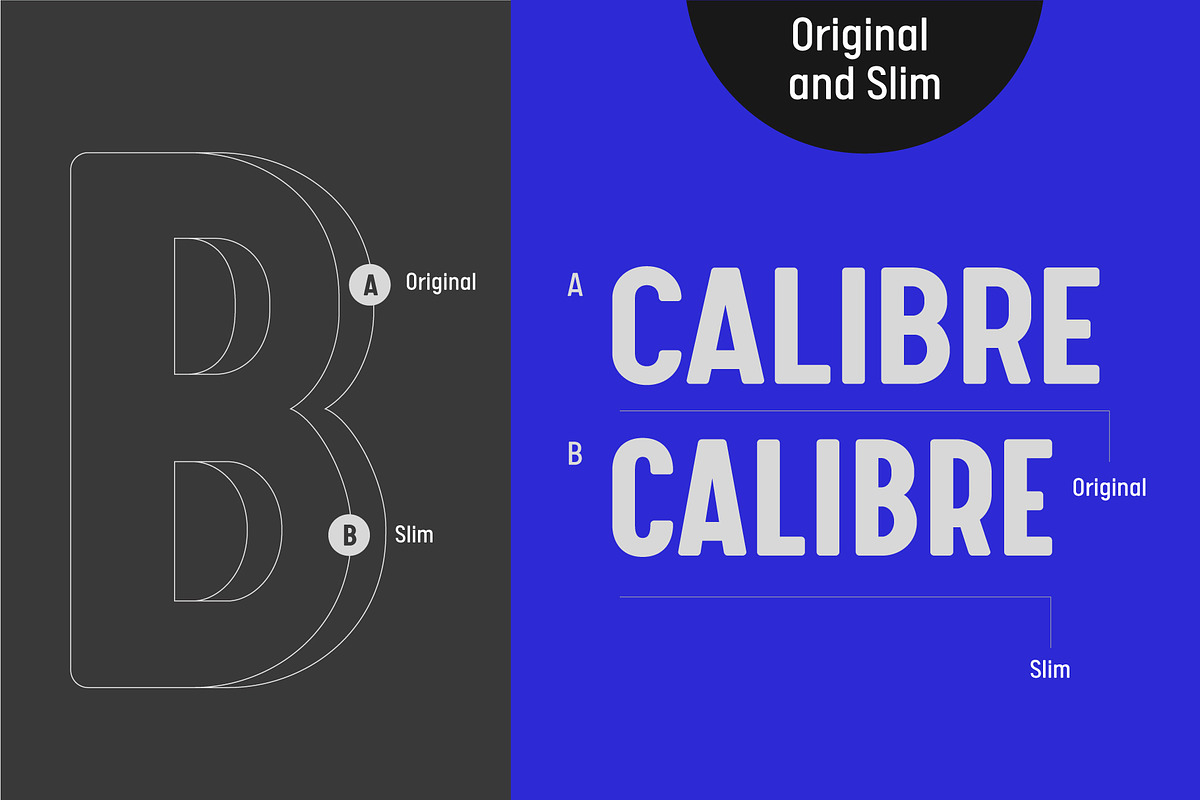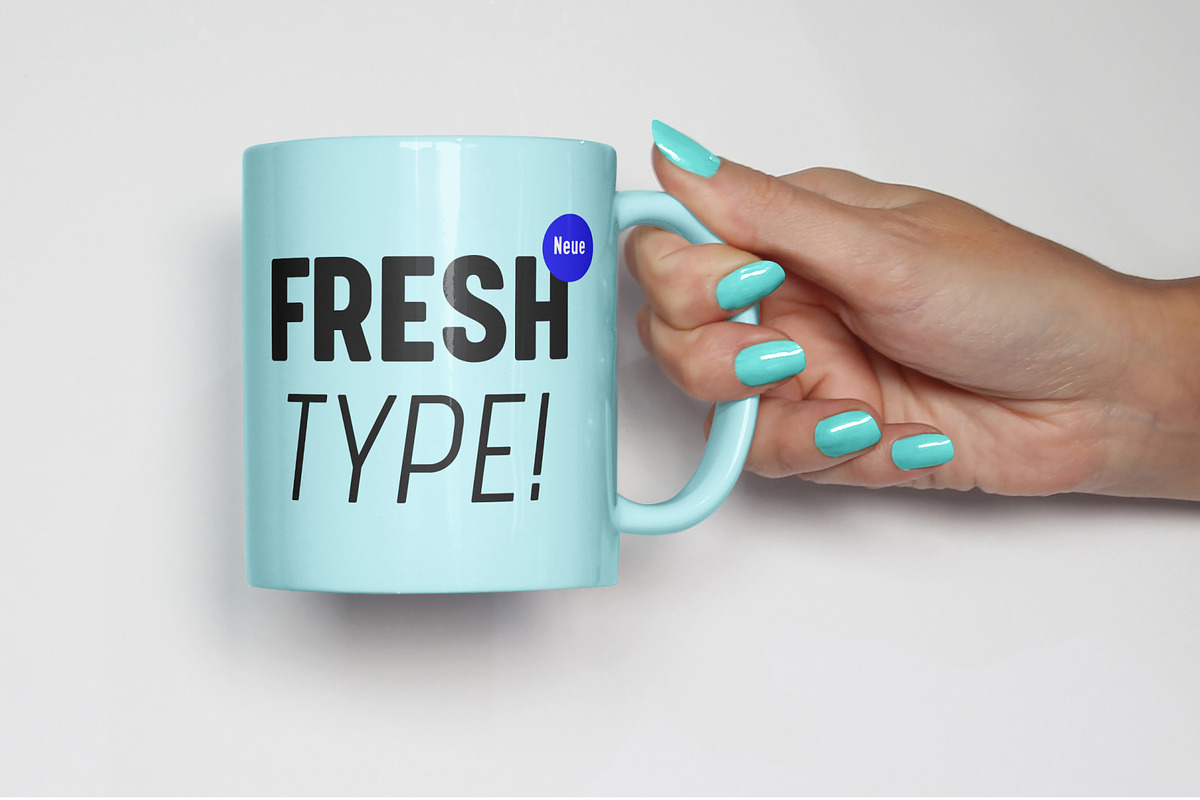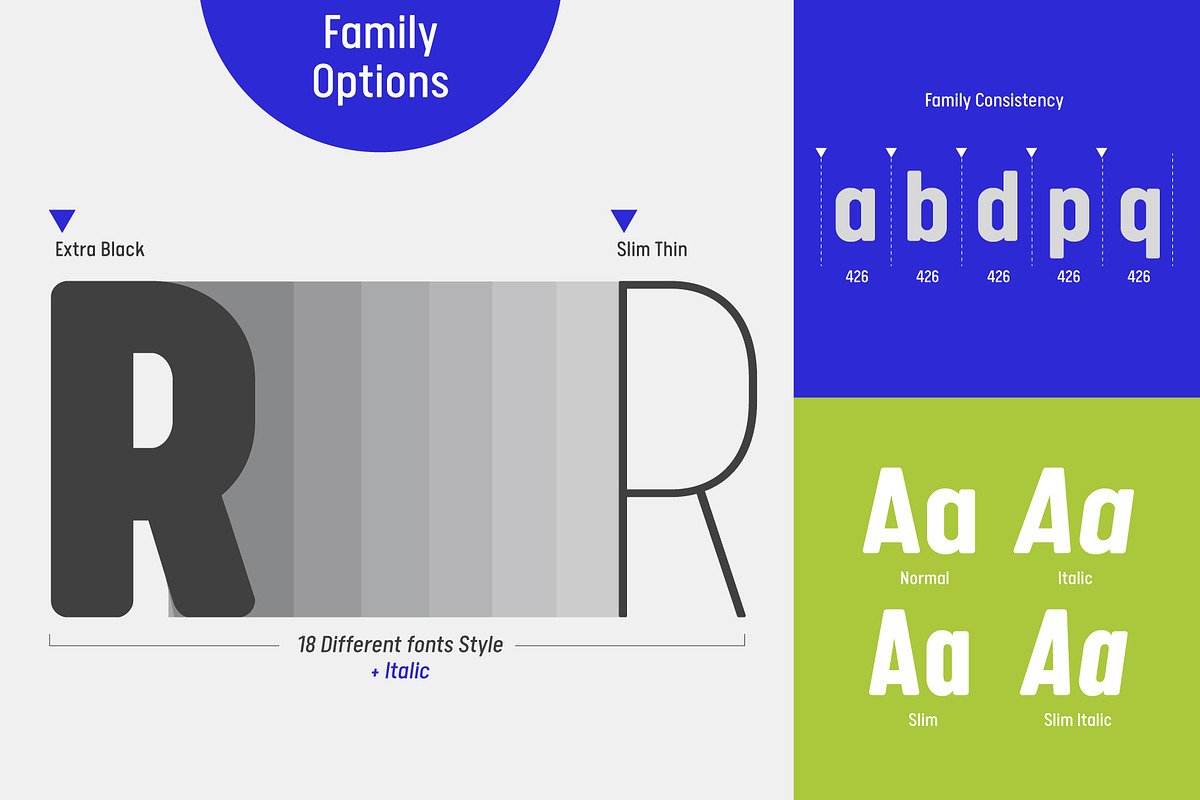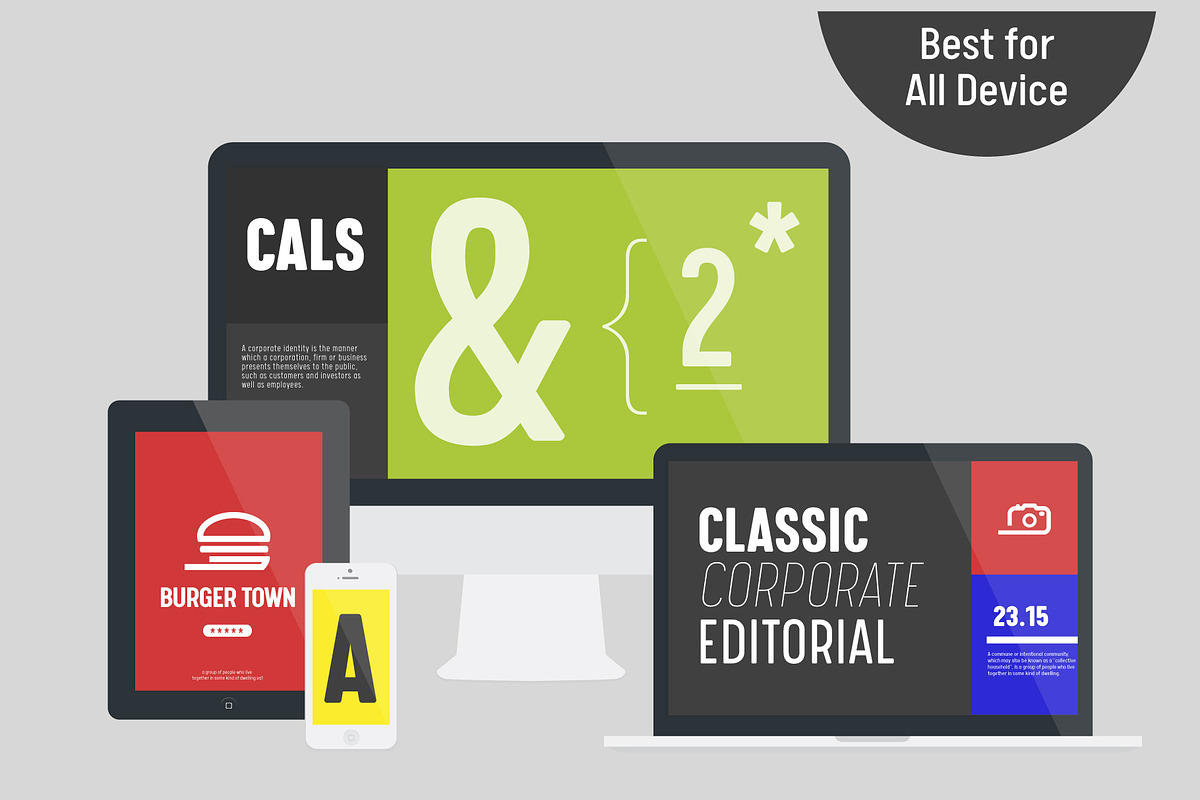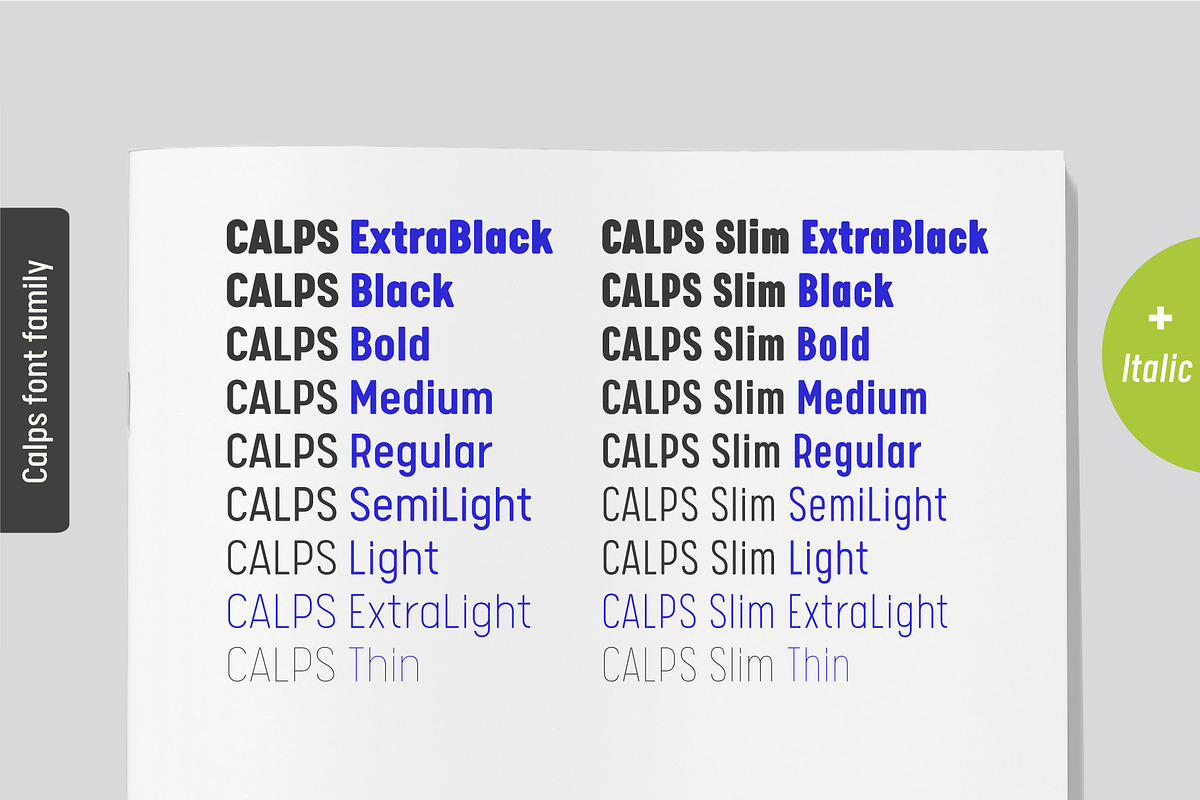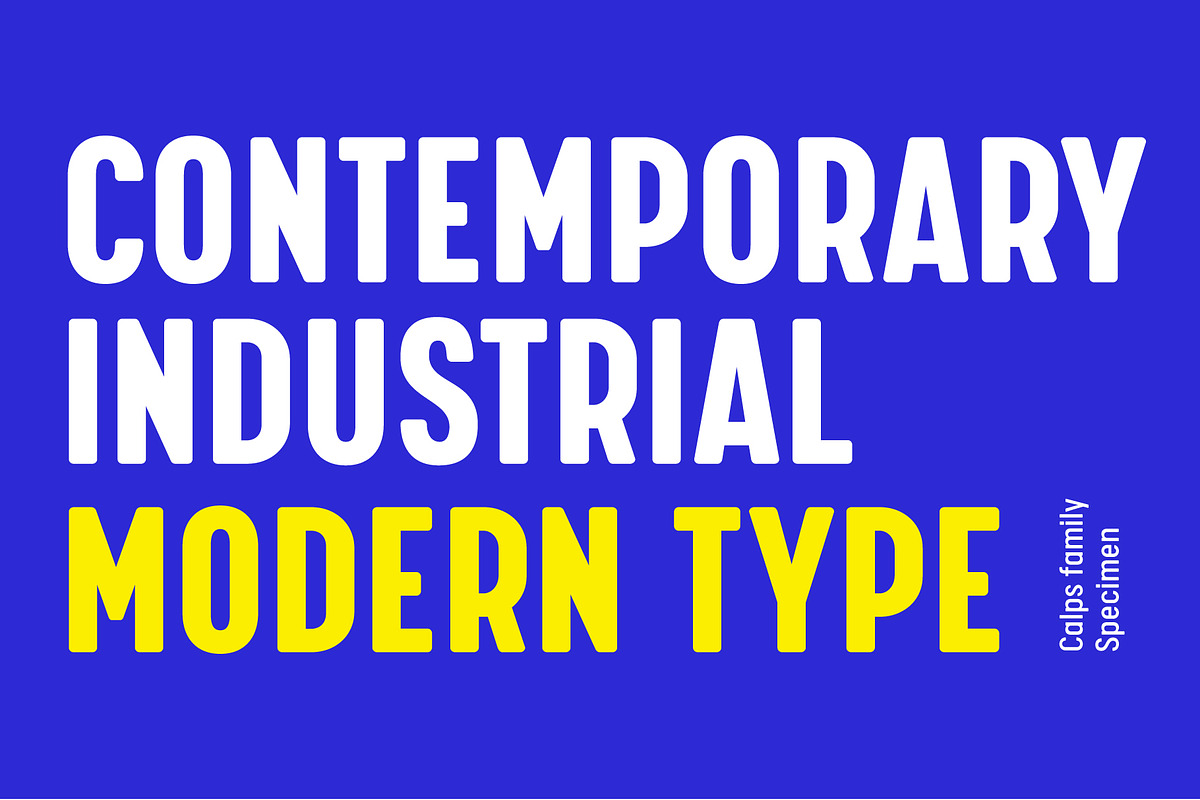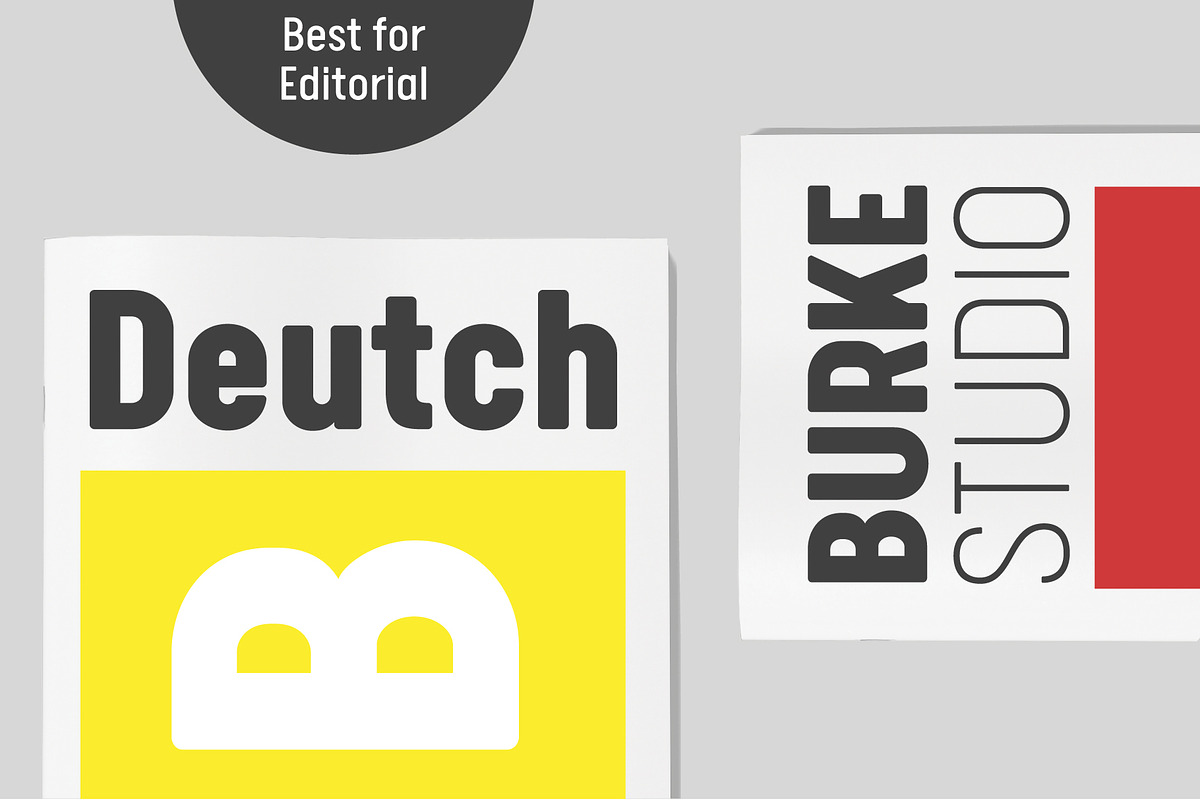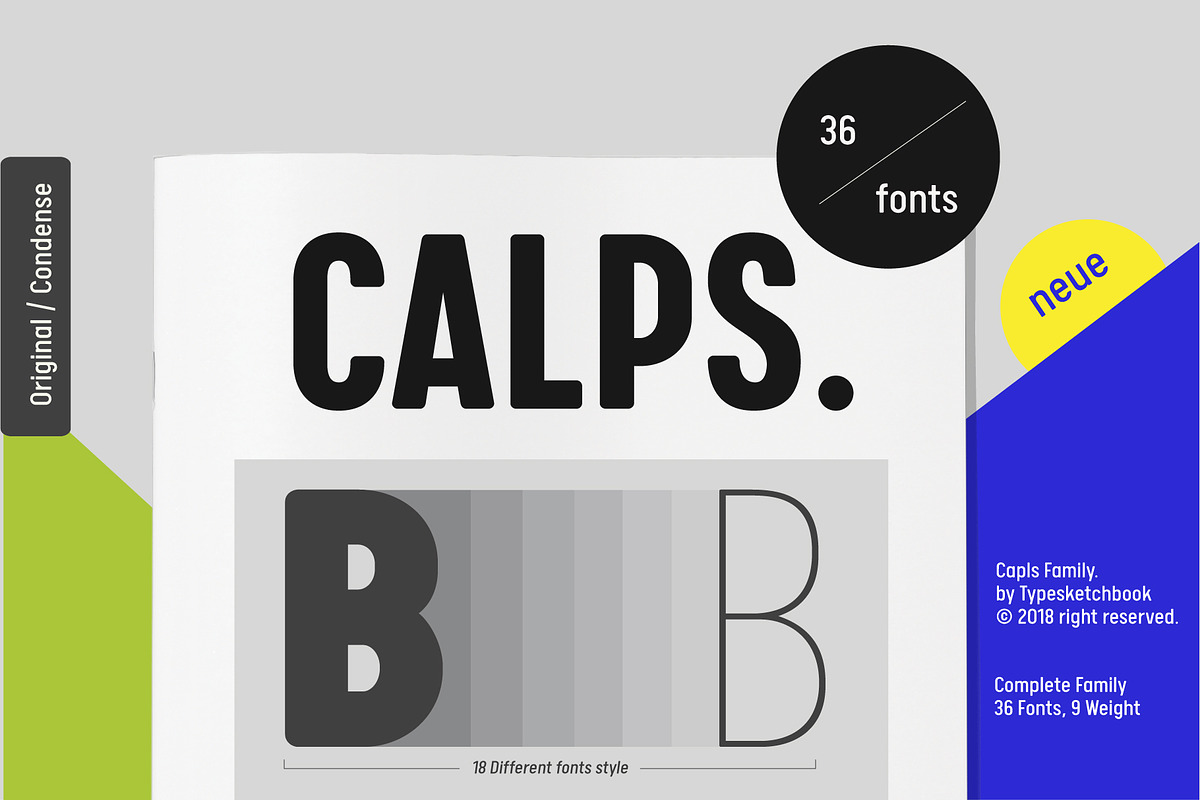
Calps Family
(sale 50% From $160) Calps is a condensed sans serif font. An unfussy design, the font is designed to be consistent across such letters as a, b, d, q, p, g and C, G, O, Q, creating a uniformity for the set. Each corner of the line is carved to decrease its sharpness, adding a touch of friendliness. If the standard font is not sufficiently condensed, there is a slim variation offering narrower proportions. In addition to the slim variation, the font also comes in roman and italic versions in 9 weights, offering a total of 36 variations for the font.